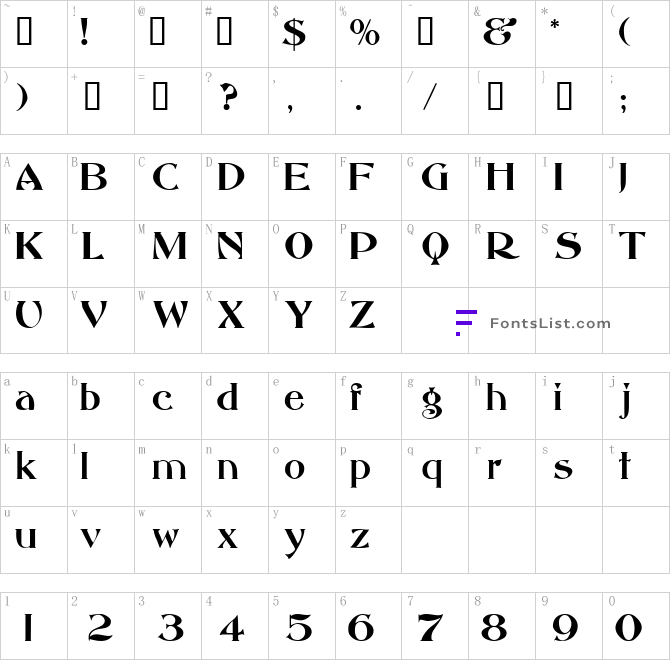
Abbess-Cyr.ttf is a very beautiful artistic font, Abbess-Cyr.ttf is widely used in the design and printing of various books and pictures,Abbess-Cyr.ttf has a strong visual impact,Abbess-Cyr.ttf is a commonly used font in newspapers, magazines and books, and is used in posters, e-commerce Poster design, store design, logo design, font design and other fields.Abbess-Cyr.